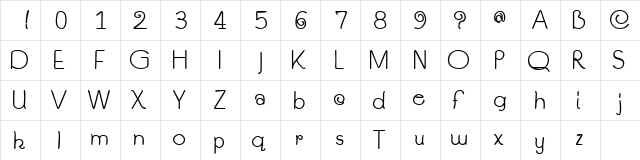
F4NAD Regular
Design Context for F4NAD Typeface
F4NAD takes a measured approach to typography — its balanced proportions and neutral character make it a reliable workhorse for both digital and print work.